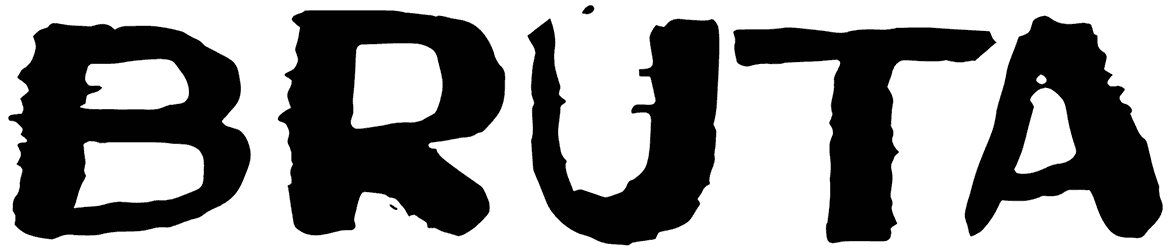
Bruta Font
For incorporating a vintage image in your typography, tend for this Bruta font to be more striking dozens of times. The grunge and messy vibes surrounded by the typewriter’s inky pattern can continually attract much attention and has the potential to appear in games, posters, digital apps, movie titles, etc.
This adventure font with madness and a messy impression running across as the perfect affair to amuse your target audience on a whole new high level, and boom.
An alphabet originally carved in wood
The German term for characters or letters is “Buchstaben,” literally “Buche” (beech) and “Stab” (rod or stick), and dates back to the Germanic custom of carving runic characters in beechwood sticks. On New Year’s Eve, 2014, I used the occasion to cut “real beech characters” myself. I carved all the characters of this font in woodcarving manner, without tracing and mirror-inverted, in smoothly planed beech rods. After printing on paper, the digital font you see here was created from the negative typeface.
Originally planning an alphabet of capital letters only, I ended up carving figures, punctuation marks and lower case letters after all. The capital letters emphasize alternation between bold and fine strokes, which is familiar in Roman typefaces. In this way, the upper case text in Bruta Woodcut obtains its very own aesthetics.
The ductus on the lower case letters is plainly not as distinct. They look more like a classical sans serif, which becomes clear as the smaller a text is set in Bruta Woodcut, the more legible it becomes.
The original image was negative. In contrast, the font consists of the positive typeface. Bruta Woodcut includes lots of ligatures and stylistic alternates for some symbols.